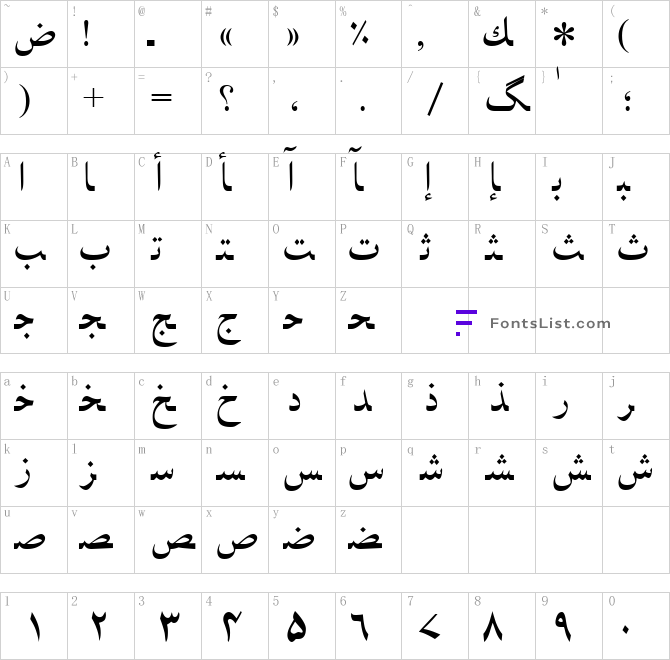
- Font Name:AlKatib1
AlKatib1.ttf is a very beautiful artistic font, AlKatib1.ttf is widely used in the design and printing of various books and pictures,AlKatib1.ttf has a strong visual impact,AlKatib1.ttf is a commonly used font in newspapers, magazines and books, and is used in posters, e-commerce Poster design, store design, logo design, font design and other fields.AlKatib1.